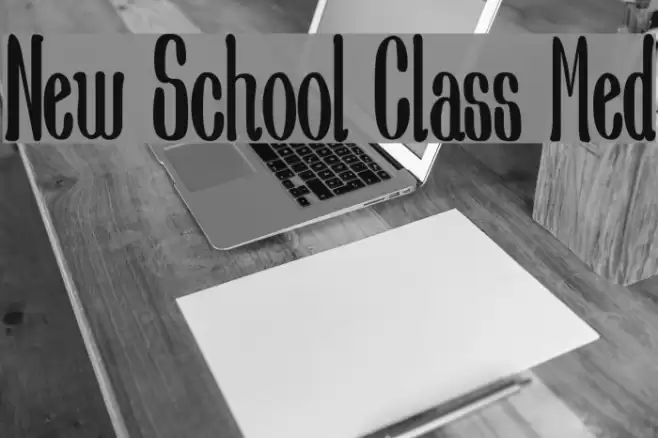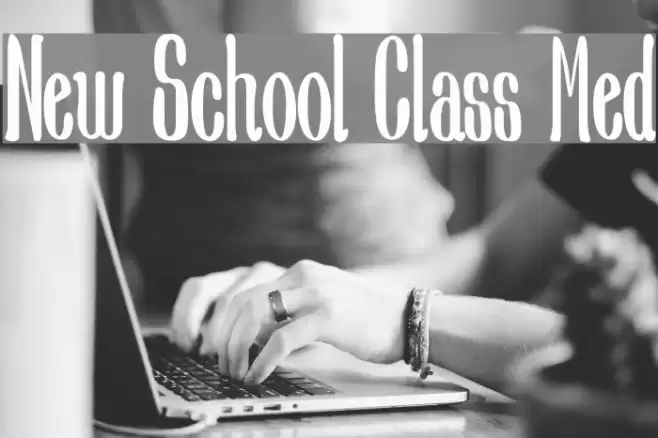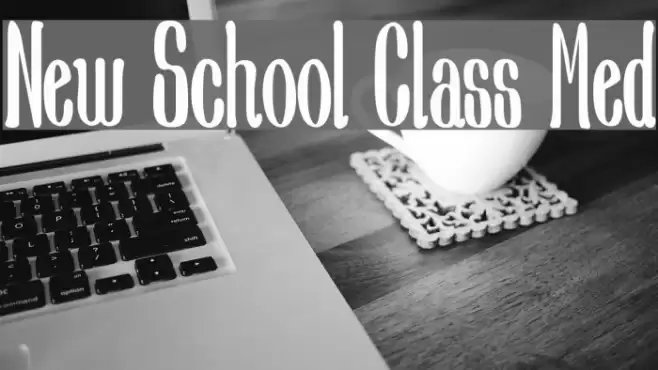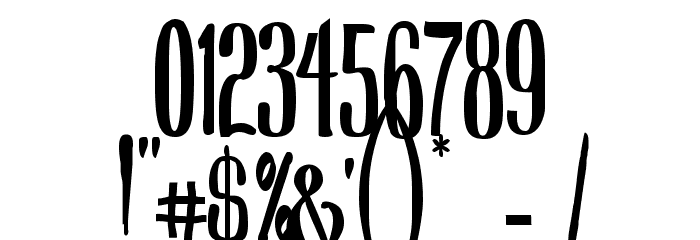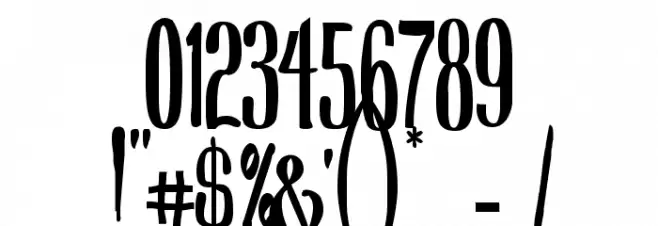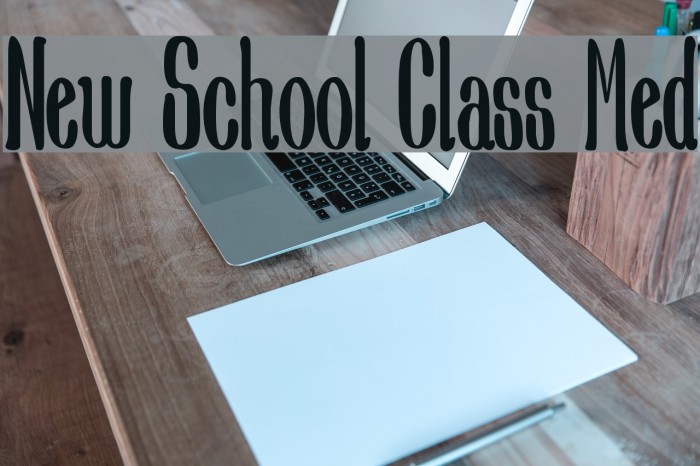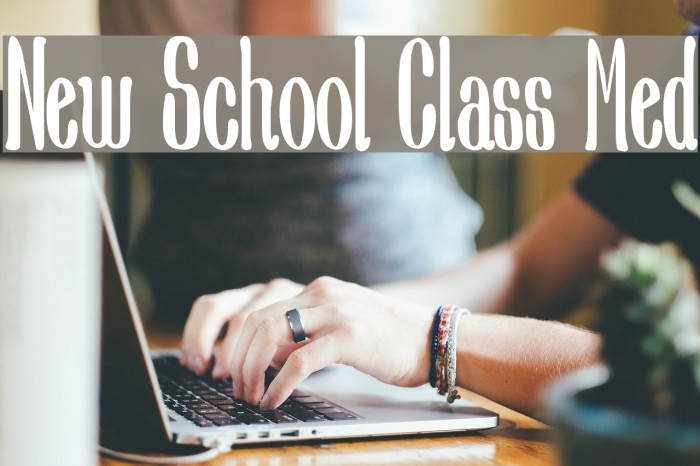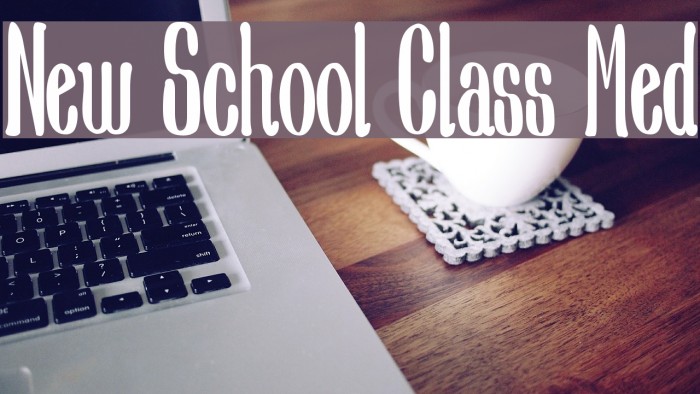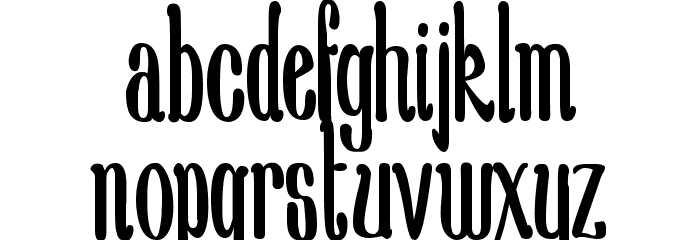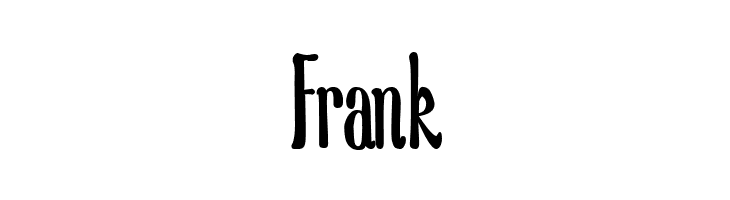
New School Class Med Font
New School Class Med Description
This font features a bold and playful design with a distinctive, elongated style. The characters are tall and narrow, giving a sense of height and elegance. The uppercase letters are particularly striking, with a slight curve that adds a whimsical touch. The lowercase letters maintain a consistent style, complementing the uppercase with their own unique flair. Numbers and special characters follow the same design principles, ensuring a cohesive look across all elements. The font's overall appearance is both modern and retro, making it versatile for various creative applications.
A bold, elongated font with a playful and modern-retro style from Uncategorized fonts.
- Proposed Projects: Ideal for posters, branding, and creative projects that require a bold and eye-catching typeface.
- Overall Style: Modern, Retro